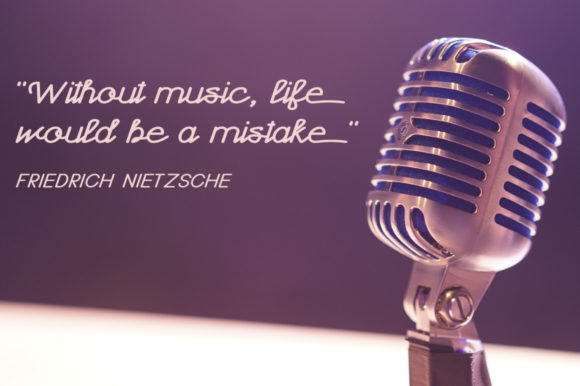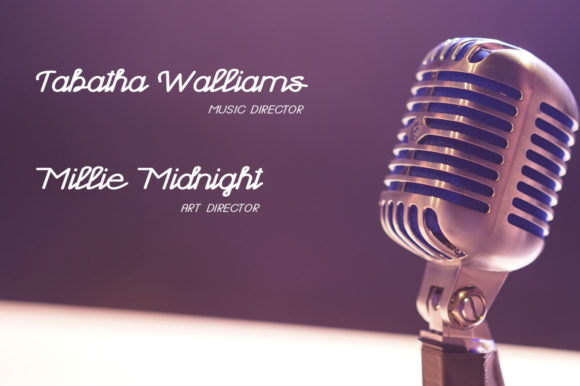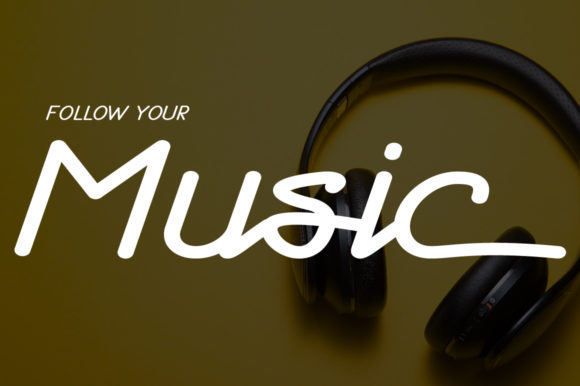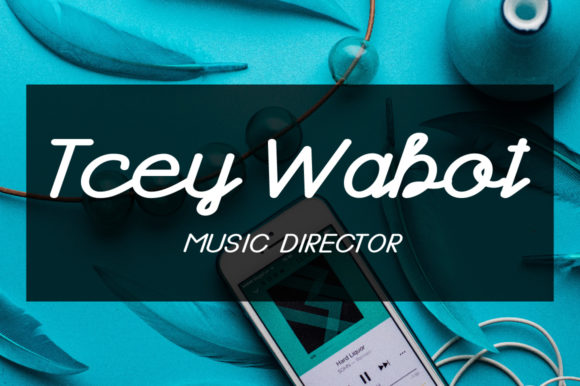
HomeScript FontsHamoni Font Script Fonts Hamoni Font FacebookXPinterestWhatsApp Hamoni Font Poster 2 Hamoni Font Poster 3 Hamoni Font Poster 4 Hamoni Font Poster 5 About Hamoni Font Hamoni is a modern and sweet script font with a playful tone. Get inspired by this one-of-a-kind typeface! DOWNLOAD ON CREATIVE FABRICAThis font is sold and delivered by Creative Fabrica. Font Canyon may earn a commission if you buy through this link. People also explored Processor Font Thequilla Font Olsaviella Font TapeHead Lovely Valentine Font Procreate Font Blenheim Signature Font Morthsside Font Wet Grove Font 338 0 TagsHamoni Font Previous articleChromount Script FontNext articleEverlove Font LEAVE A REPLY Cancel reply Comment: Please enter your comment! Name:* Please enter your name here Email:* You have entered an incorrect email address! Please enter your email address here Website: Save my name, email, and website in this browser for the next time I comment. Personal Use Free Numberpile Personal Use Free Read more about this font Luxima Personal Use Free Read more about this font The Pottery Personal Use Free Read more about this font Fake Receipt Personal Use Free Read more about this font BLOG The 10 Best Handwriting Fonts to Add Personality to Your Designs 10 of the Best Handwriting Fonts for Adding Personality to Your Designs There will undoubtedly be no other better choice than handwriting fonts to give... Modern Sans-Serif Fonts That Brands Love in 2025 To increase your work productivity, choose the most readable fonts. How to Cut Any Font on Cricut: Convert a Font to SVG (Free)